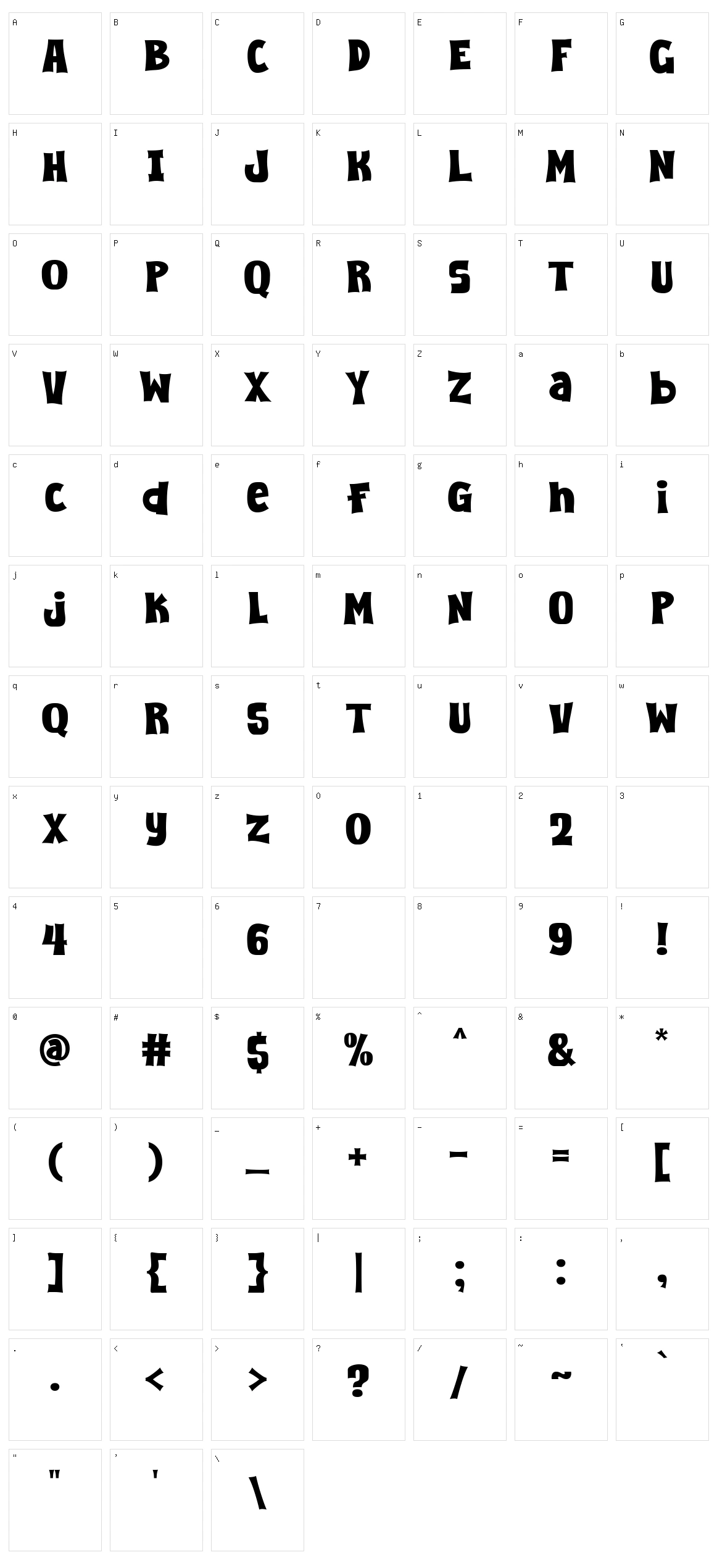
Super Friday is a versatile font that can be used for a variety of purposes. With its unique style, it’s sure to add a touch of personality to your projects.